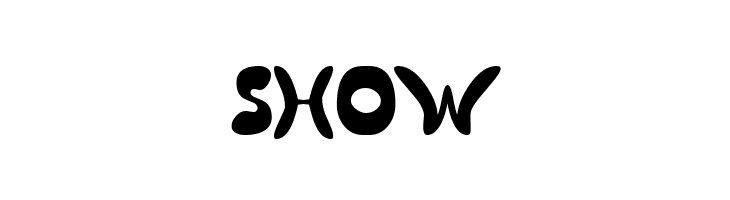
Plastic Fantastic Dots DEMO Regular Font
( Fonts by Astigmatic One Eye Typographic Institute - Brian J. Bonislawsky - astigmatic.com )
A playful, organic font with bold, irregular shapes and fluid lines.